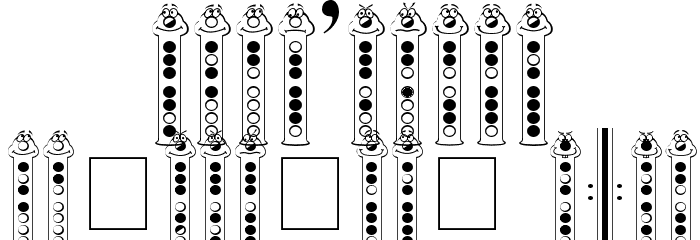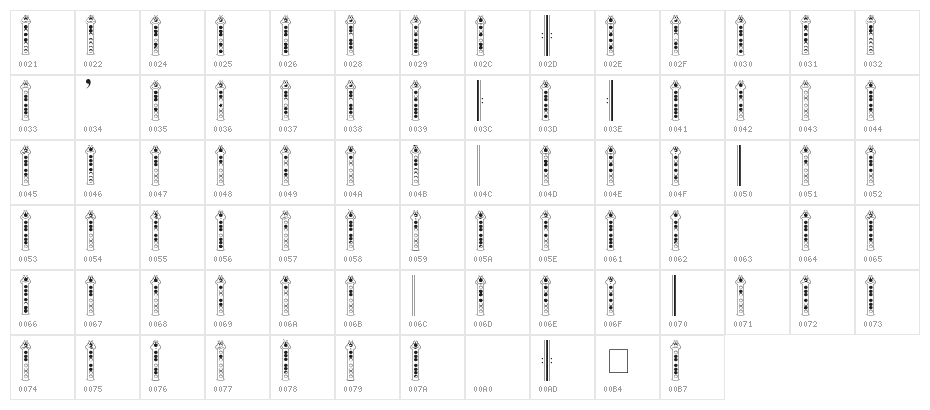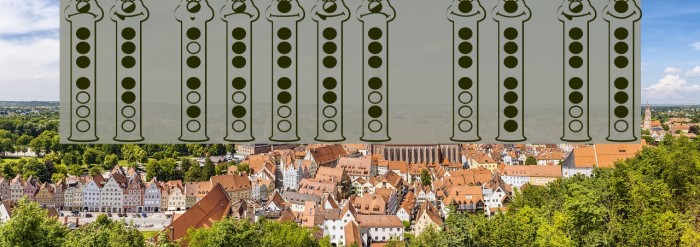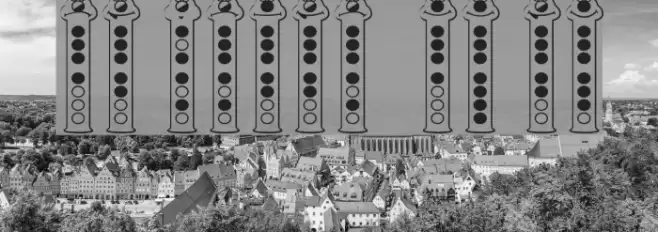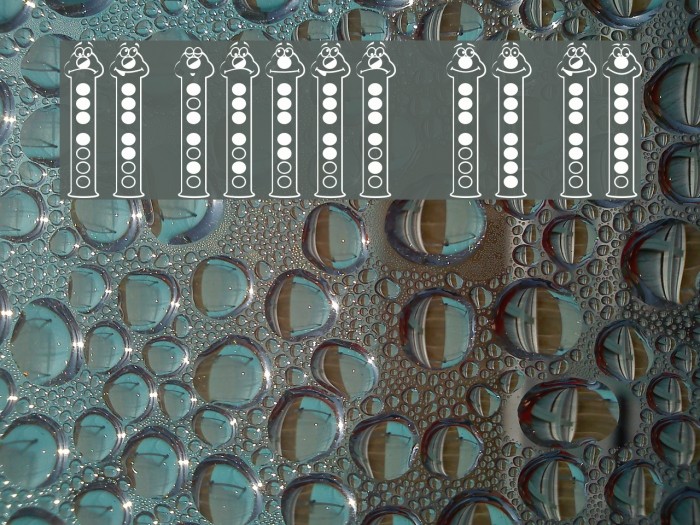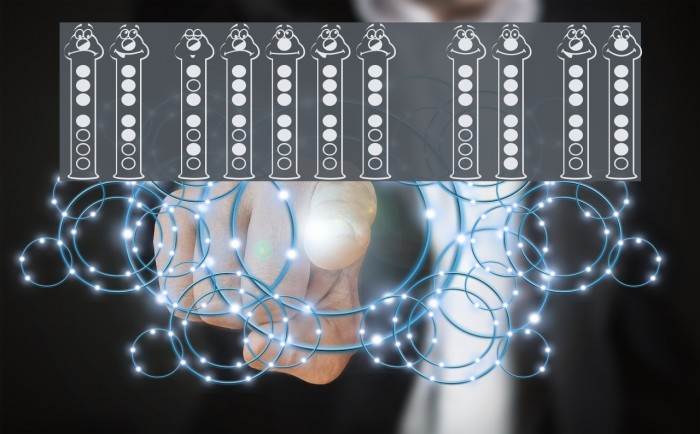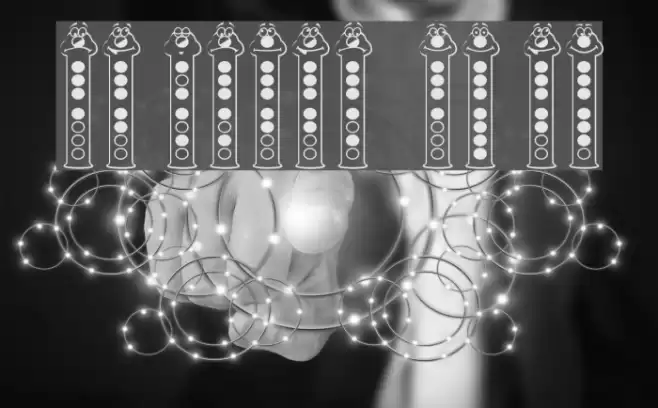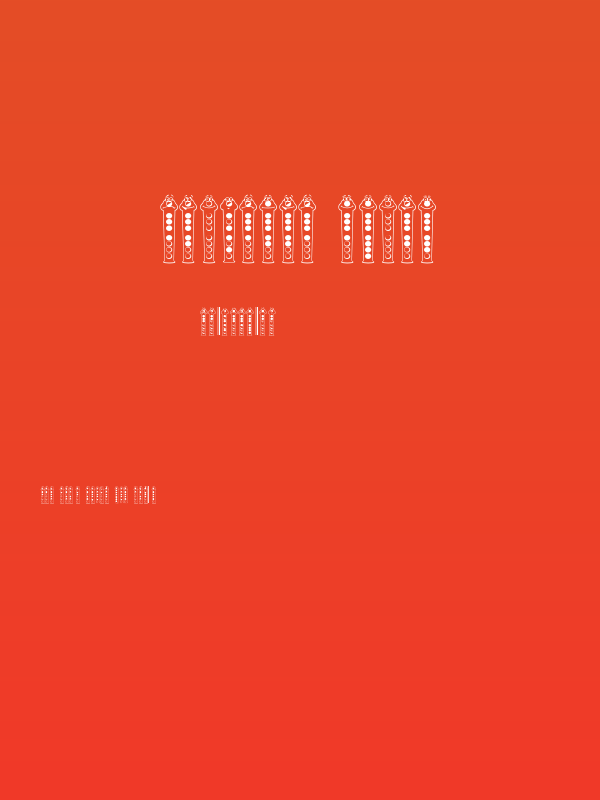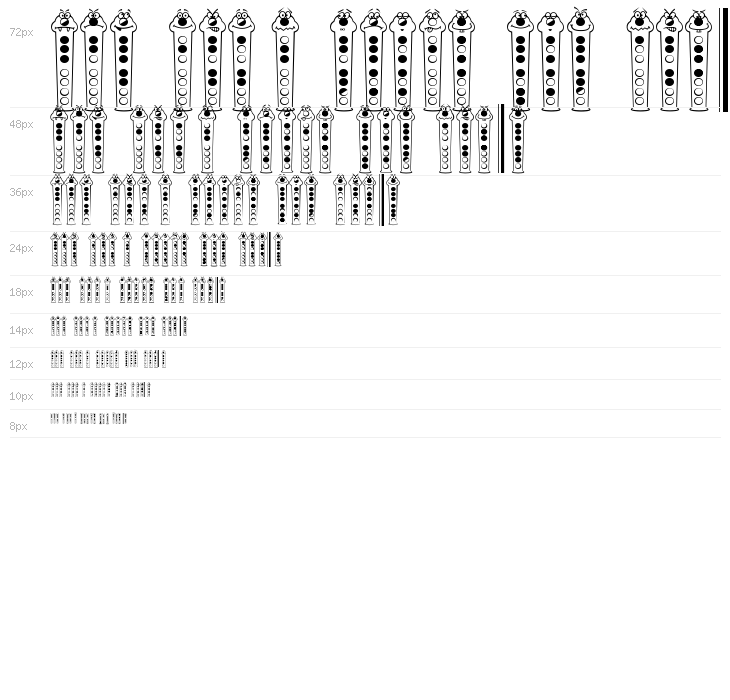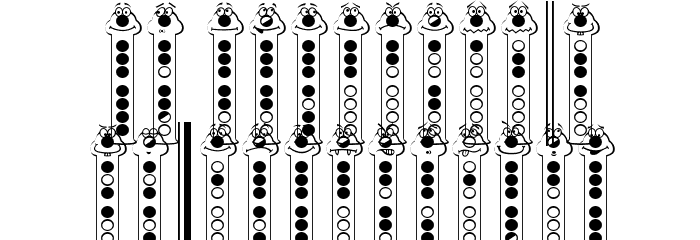
Recorder Faces Font
Recorder Faces Description
This is a whimsical and playful font featuring recorder instruments with expressive faces on top. Each character is uniquely represented by a recorder with different finger positions, creating a fun and engaging visual style. The font is highly decorative and not suitable for traditional text but rather for creative and thematic projects. The characters are bold and have a consistent width, with no variation in stroke contrast. The overall design is humorous and intended to bring a sense of fun and creativity to any project.
| Use Case | Logos, Posters, Creative Designs |
| Proposed Projects | Ideal for children's books, music-themed posters, educational materials, and playful graphic designs. |